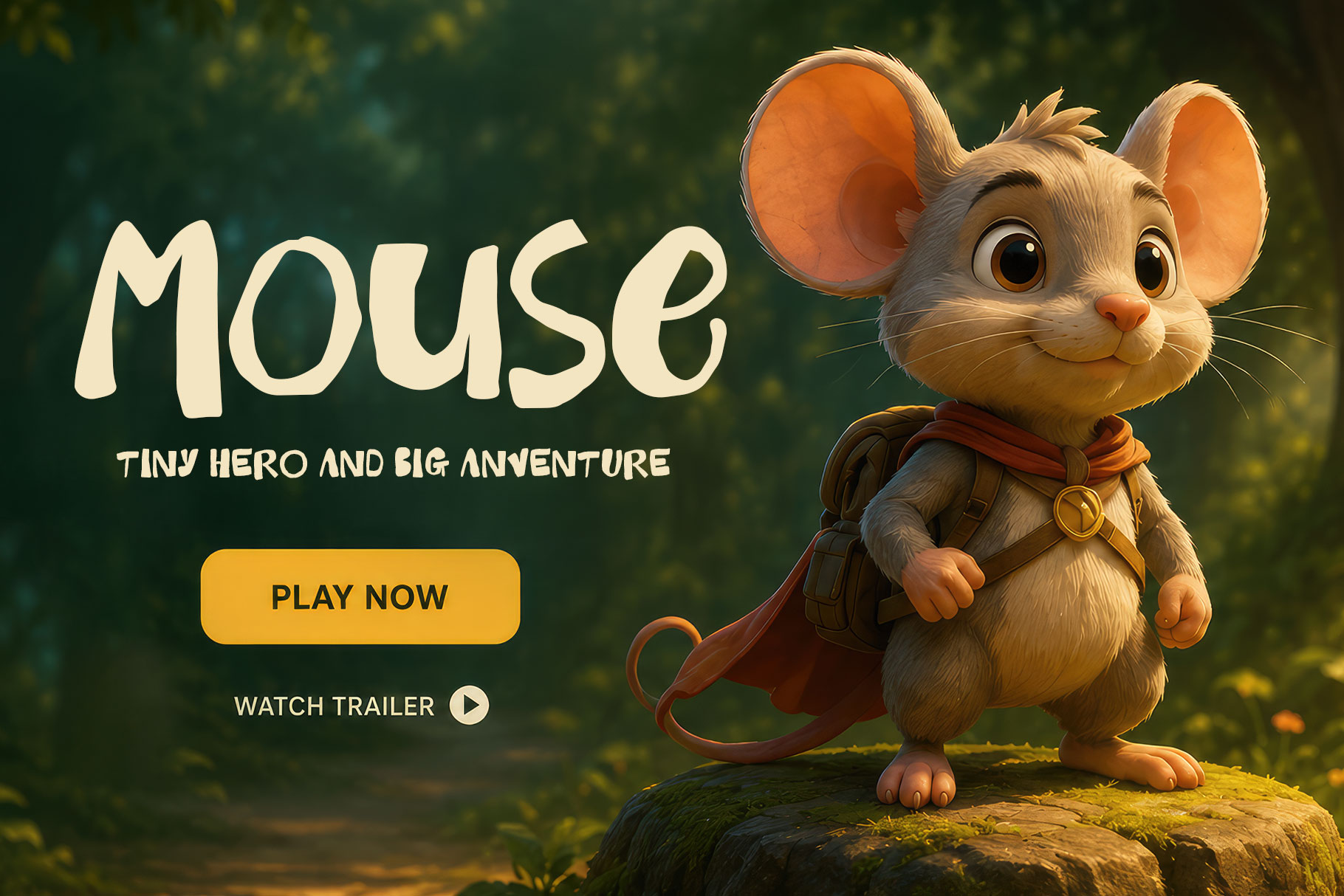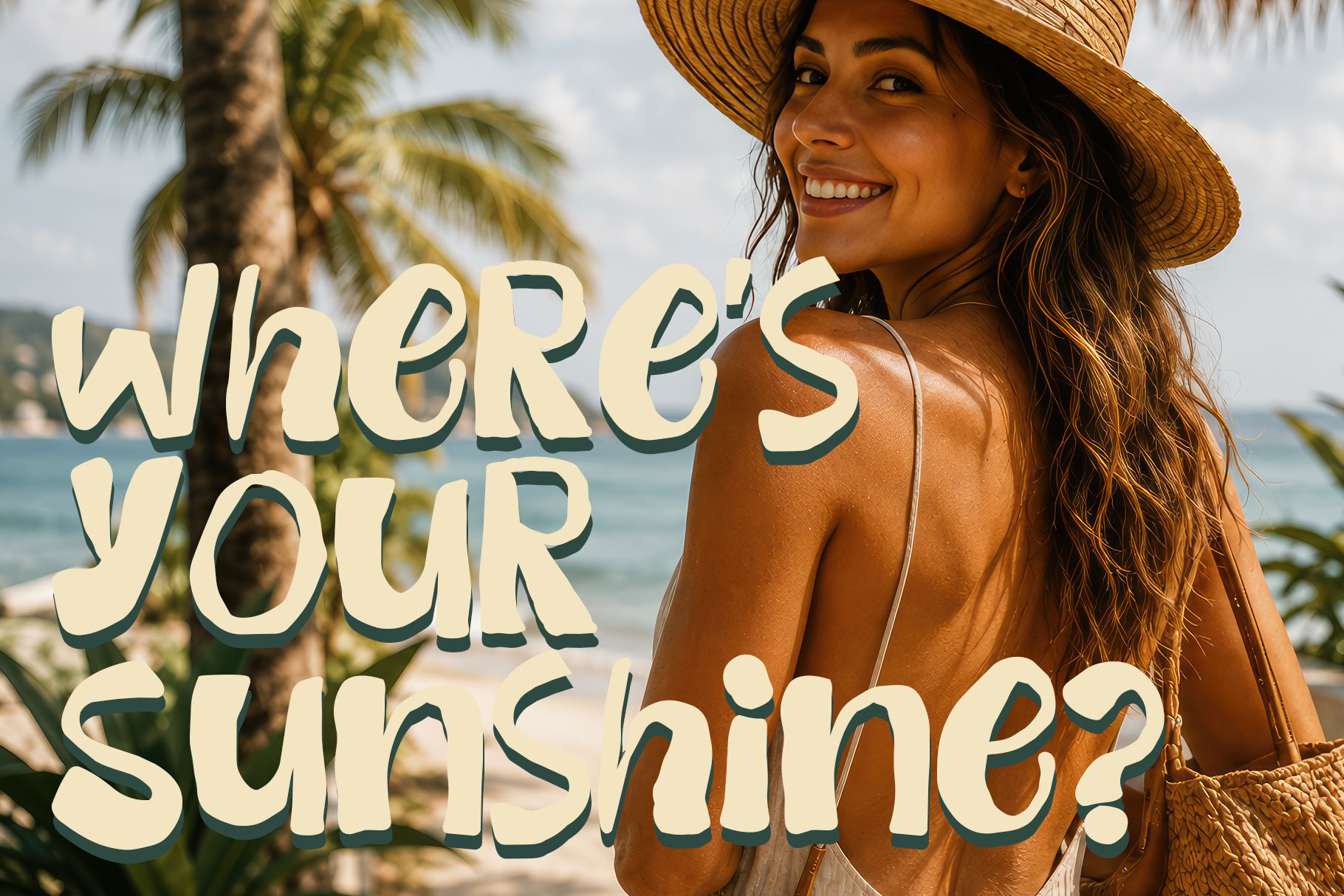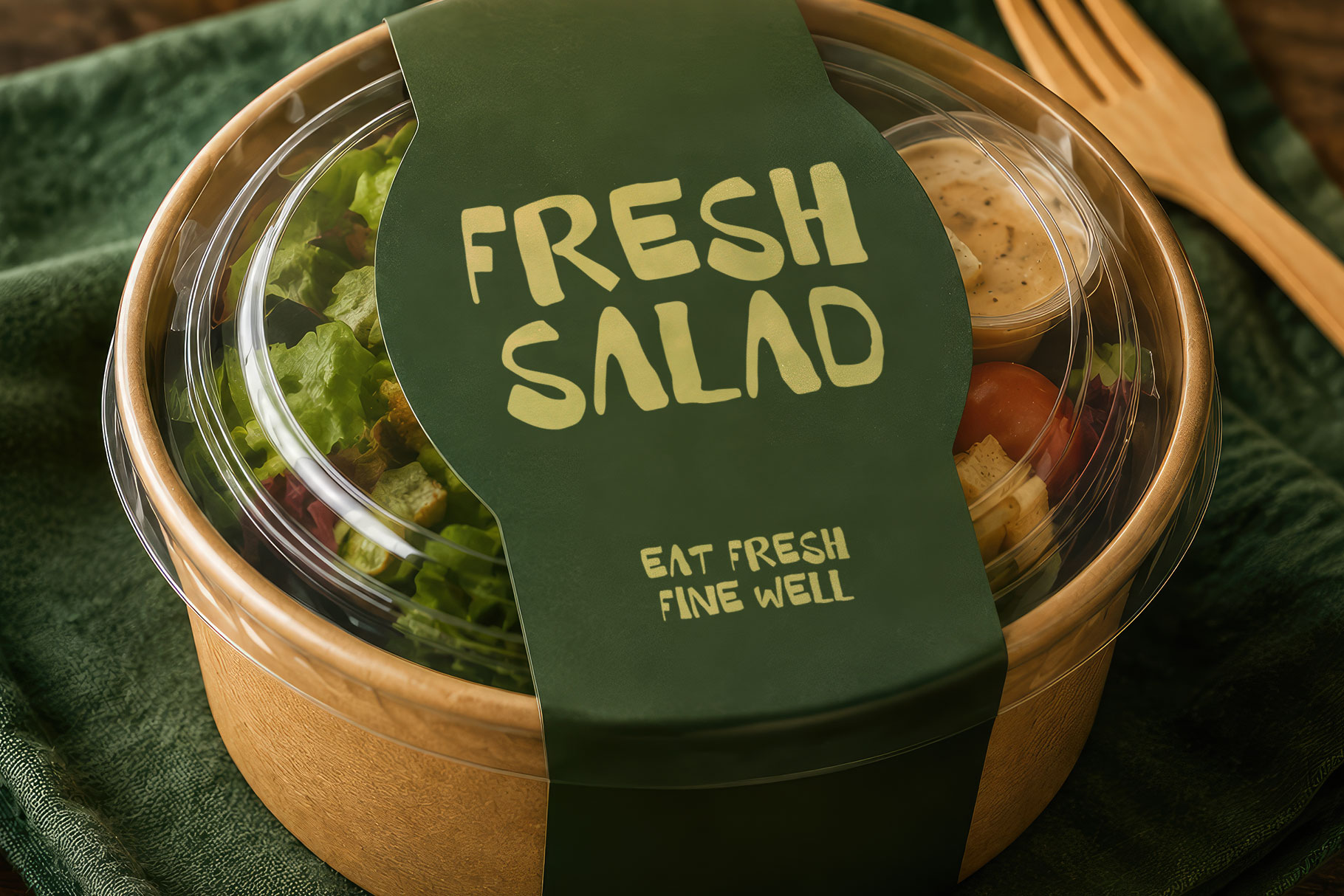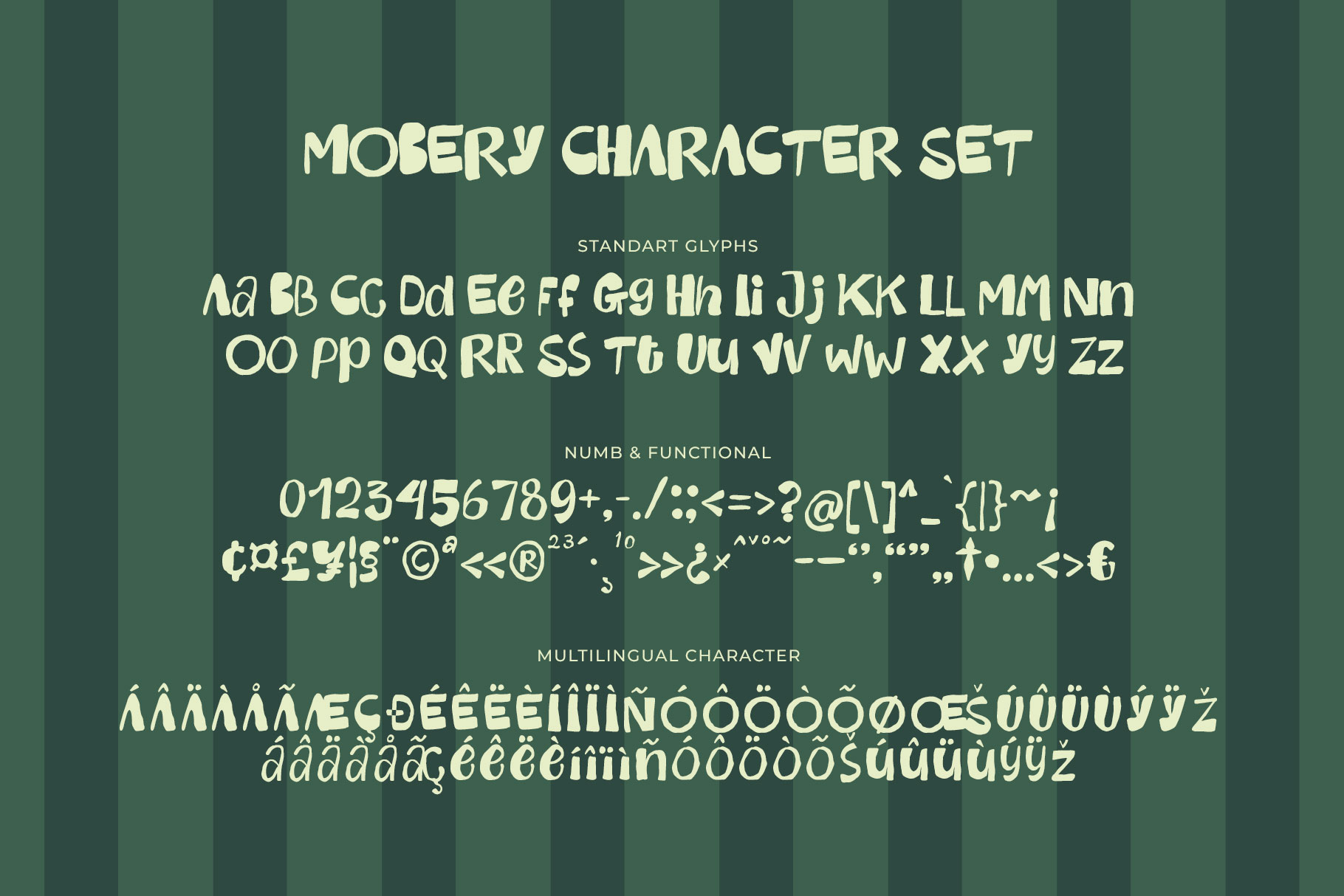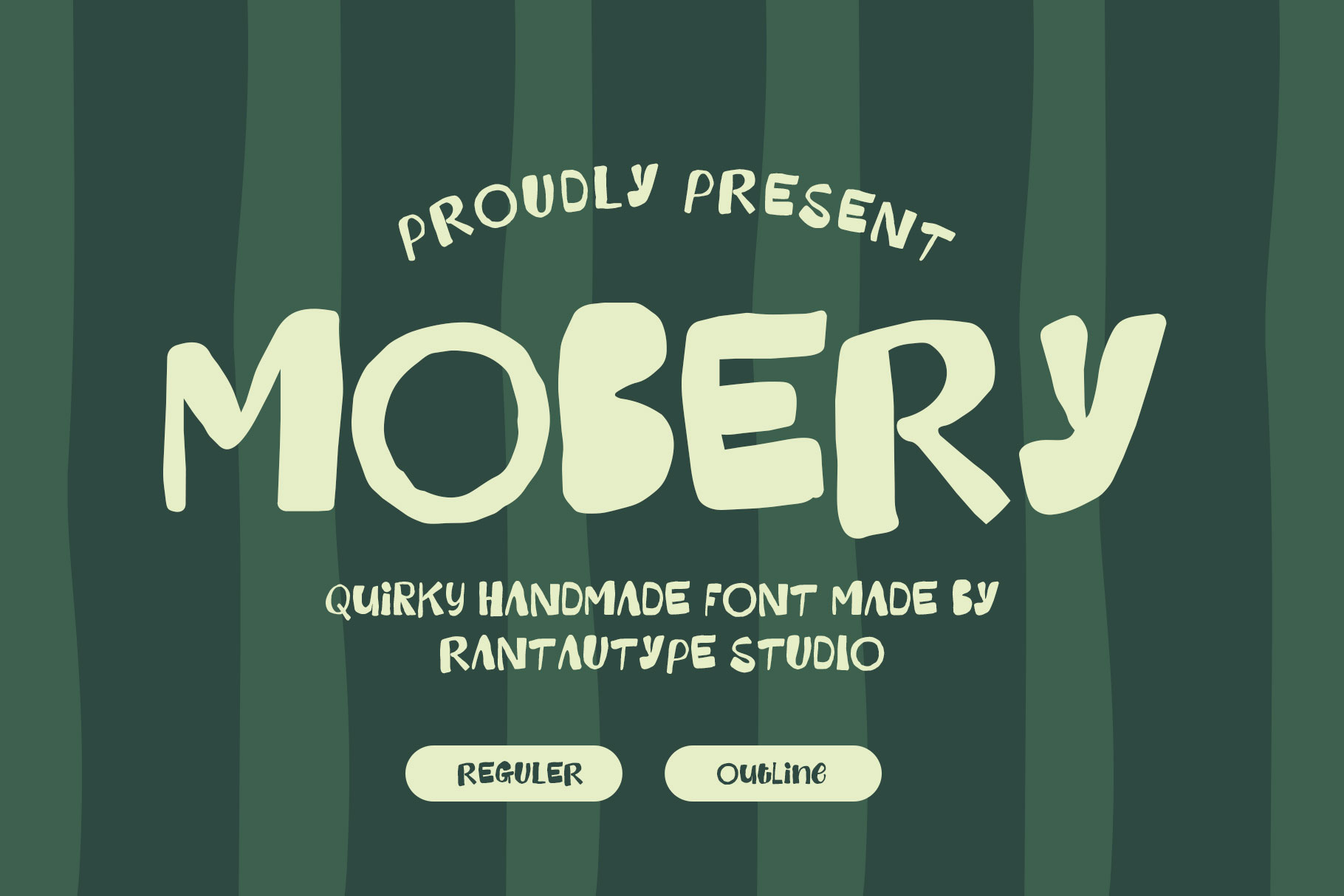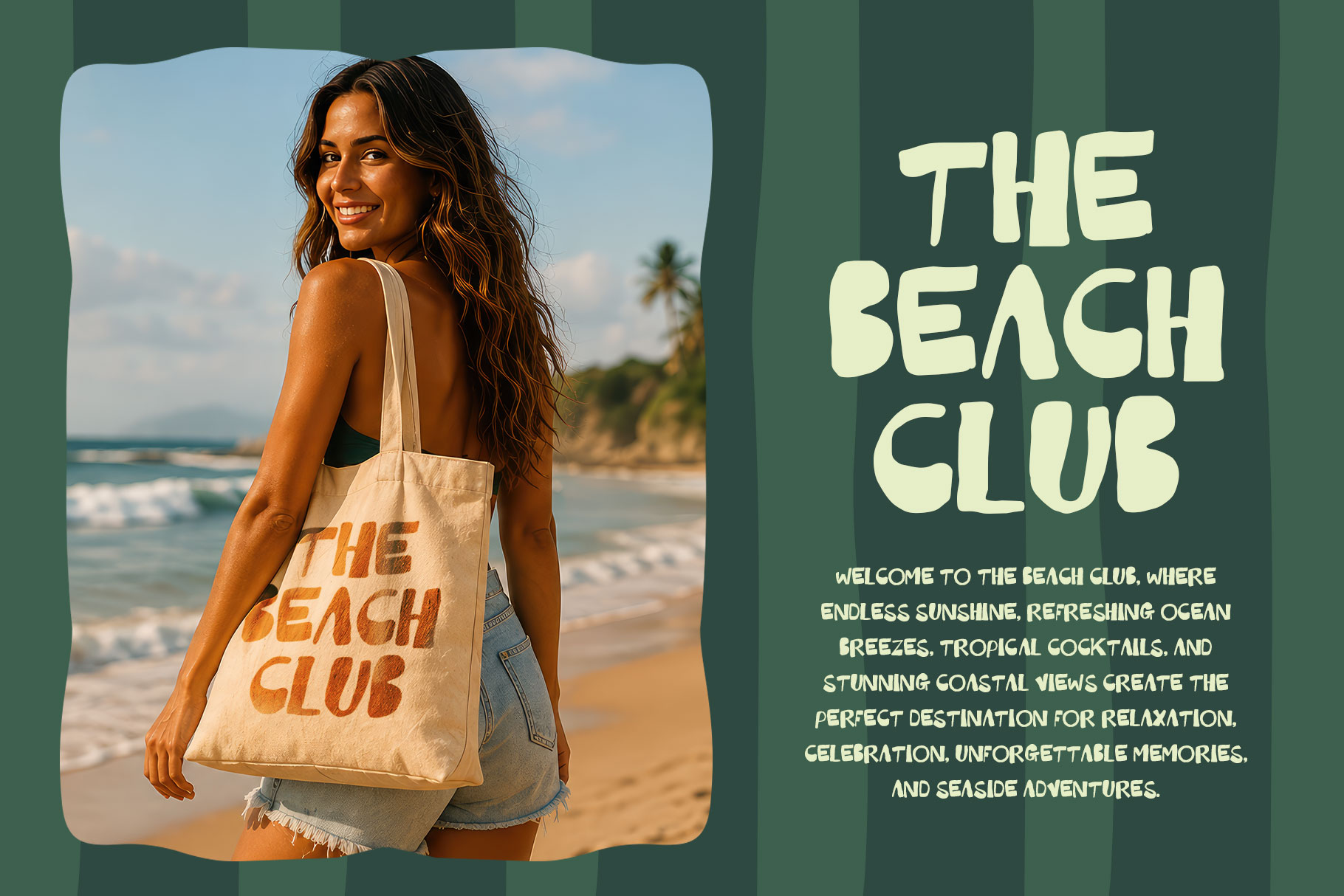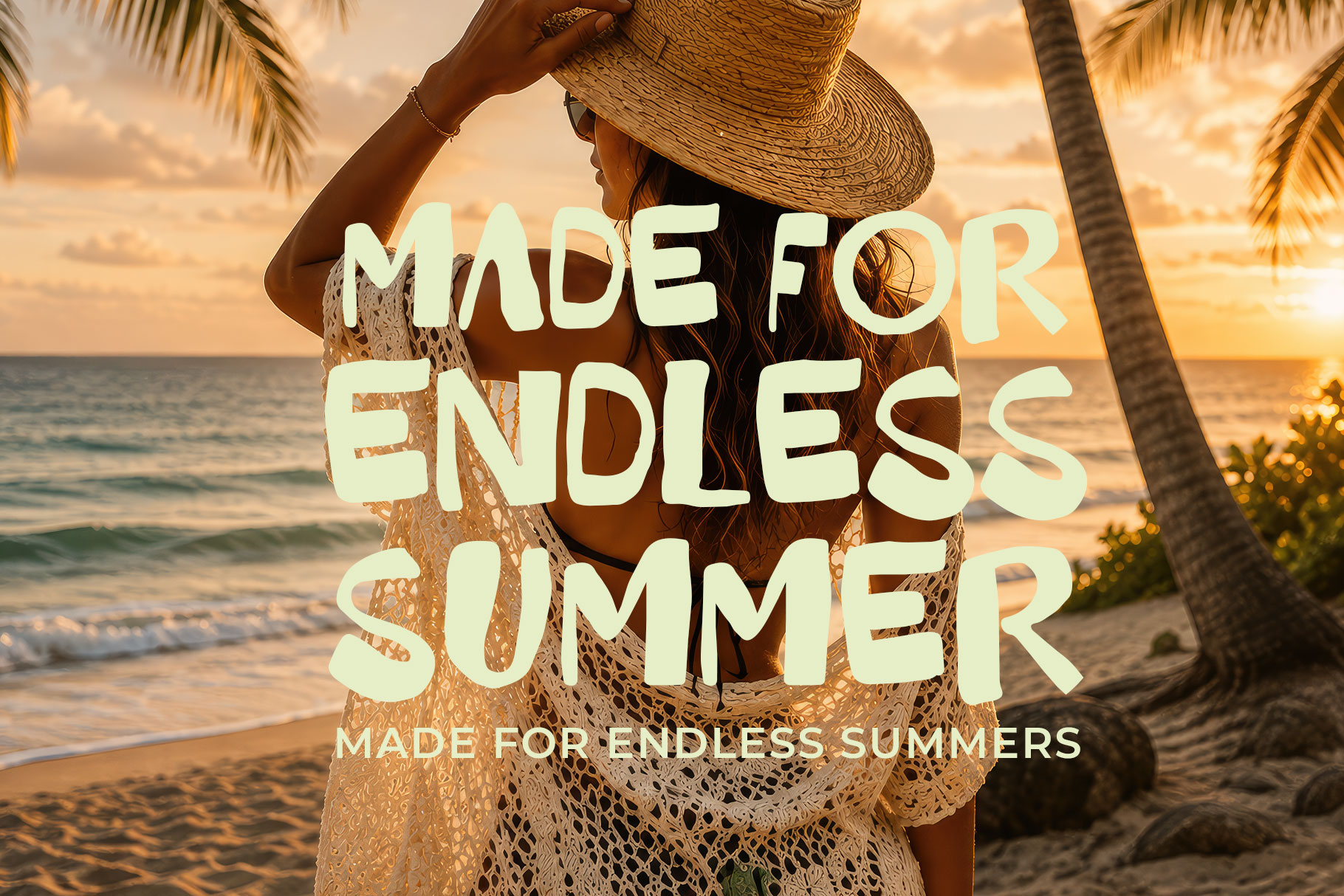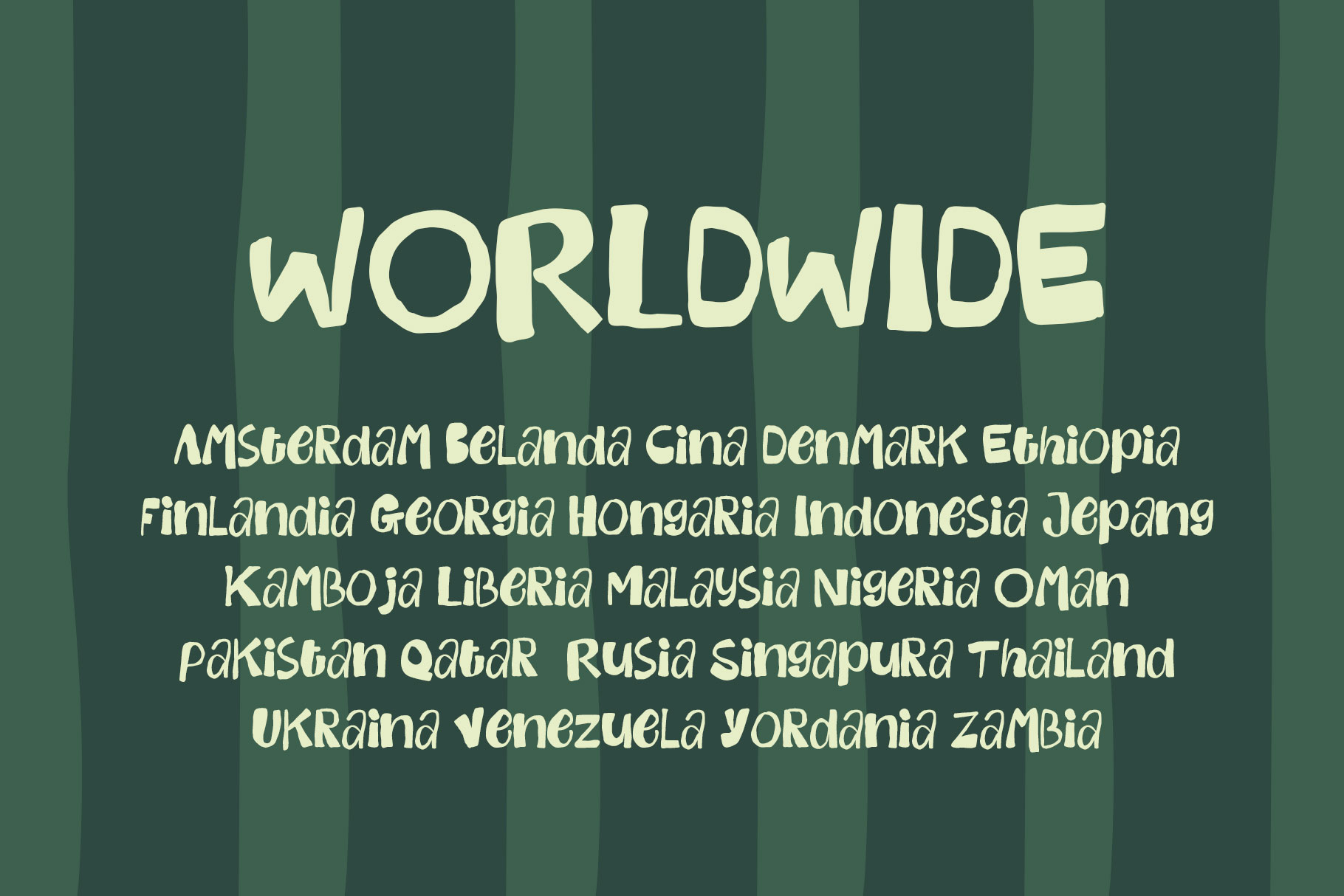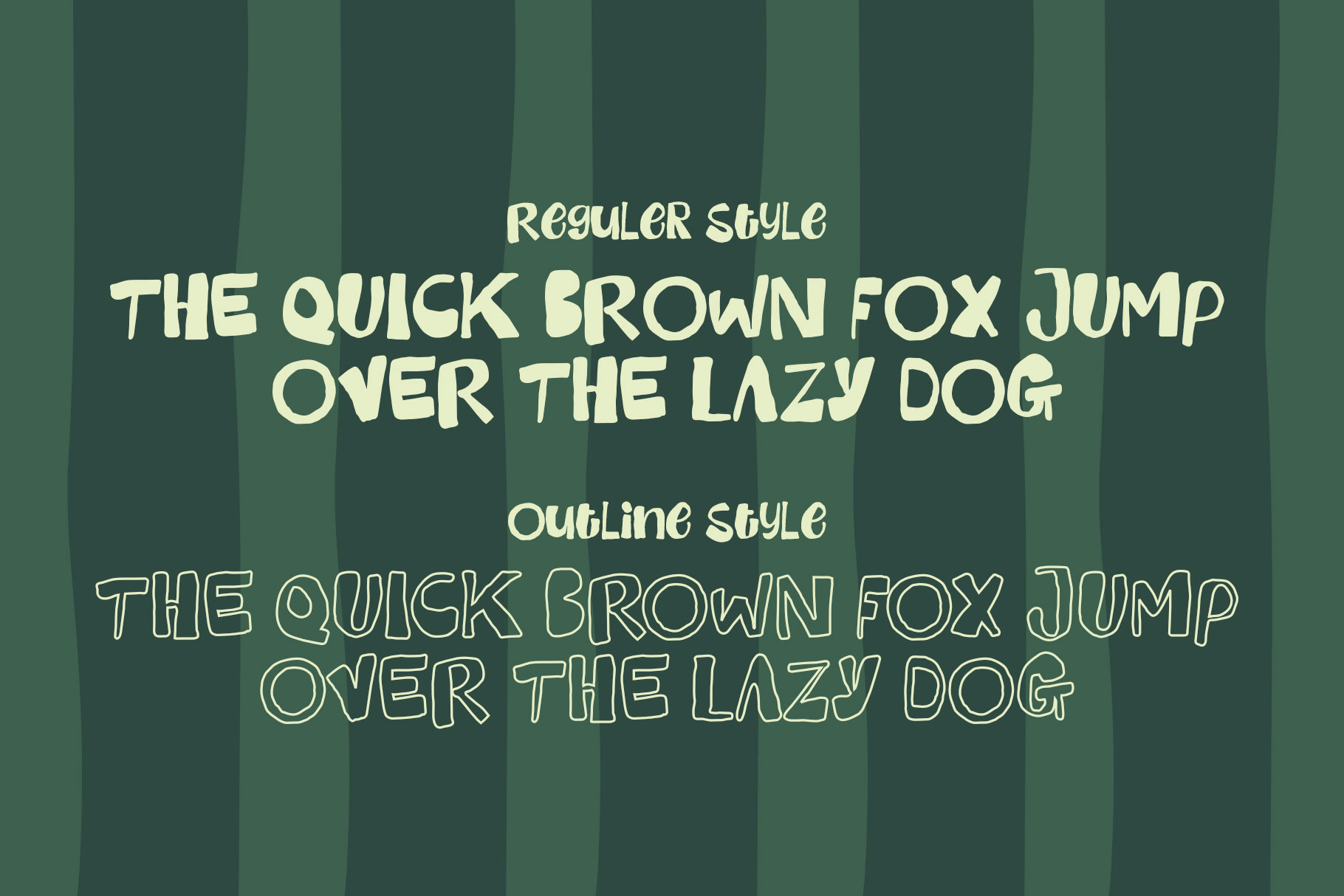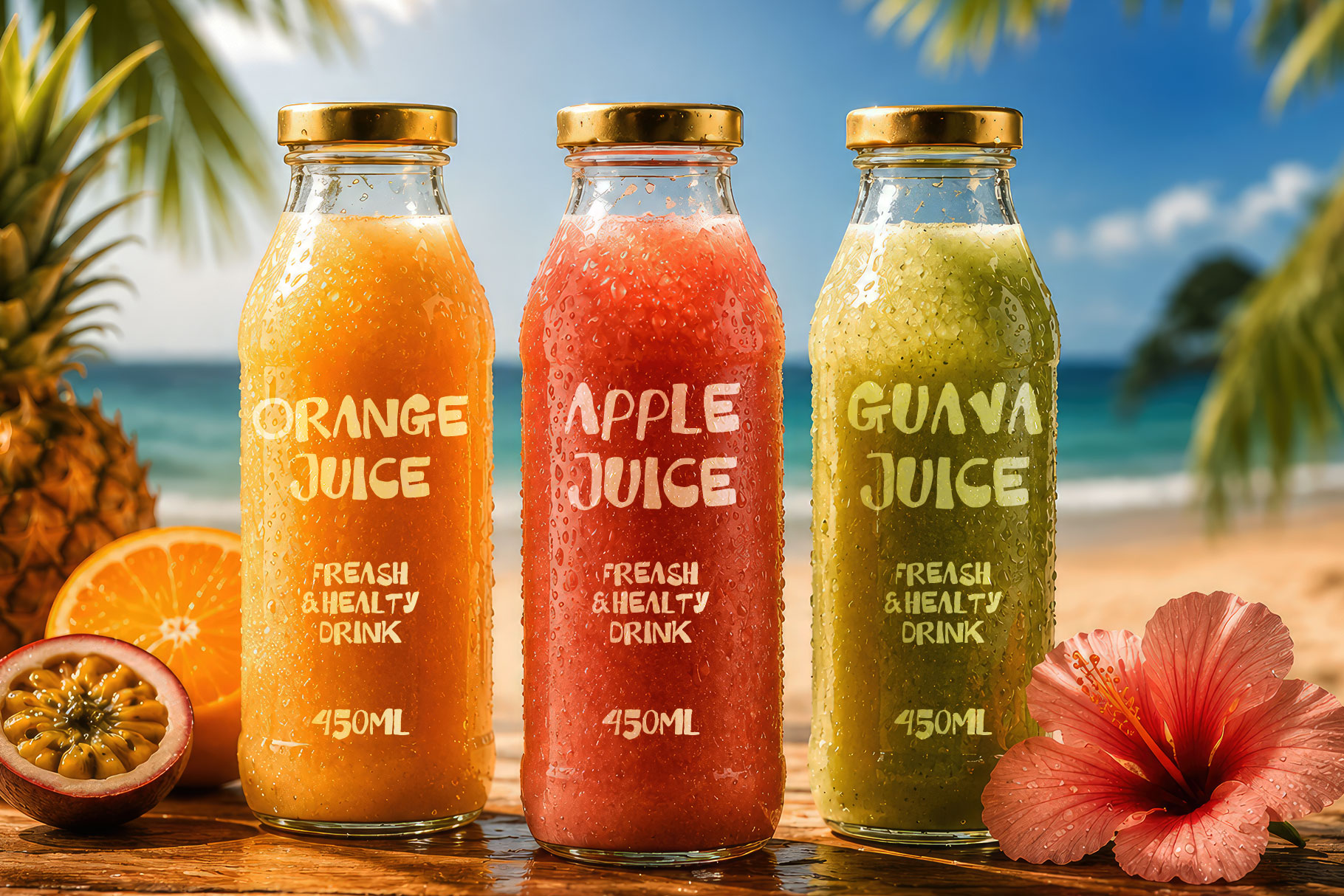
Mobery is a quirky handmade display font bursting with personality, warmth, and playful charm. Its organically uneven strokes, rounded edges, and naturally imperfect letterforms create an authentic handcrafted. Inspired by hand-painted signage, tropical adventures, and carefree summer moments, Mobery delivers a relaxed yet bold visual presence that feels both inviting and memorable.
Mobery is a perfectly choice for any creative endeavor, creating, modern, lifestyle design such as logotype, title, cover, branding, invitations, social media posts, advertisements, printed quotes, product packaging, corporate brand, product designs, labels, watermarks, special events and any other project with playful and relax touch.